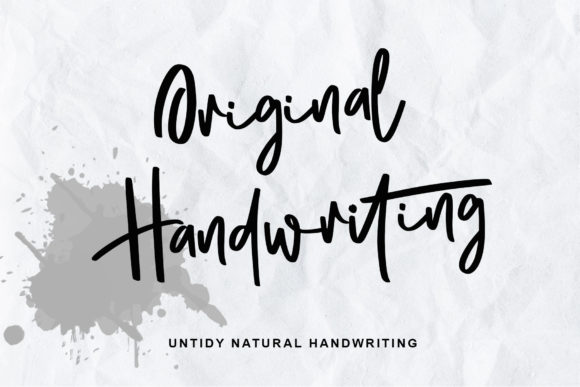
Welcome to the world of Original Handwritten Font, where elegance and vintage charm intertwine to create a captivating script font that will elevate your designs to new heights. Immerse yourself in the beauty of this meticulously crafted font, designed to bring a touch of timeless sophistication to your creative projects.
With its smooth curves and flowing lines, Original Handwritten Font exudes a sense of effortless grace, making it the perfect choice for fashion branding, editorial designs, or any project seeking a touch of vintage allure. Its PUA encoding ensures that you can effortlessly access a treasure trove of glyphs and ligatures, empowering you to add intricate details and personalization to your designs.
Harness the power of Original Handwritten Font to create captivating logos that exude elegance and sophistication, eye-catching social media graphics that demand attention, or stunning invitations and greeting cards that leave a lasting impression. Let your creativity soar as you explore the endless possibilities that this versatile font offers.
Join the ranks of discerning designers who appreciate the finer things in life and embrace Original Handwritten Font as your go-to choice for creating designs that resonate and inspire. Its timeless beauty and versatility make it an indispensable tool for any creative professional seeking to make a lasting impact.